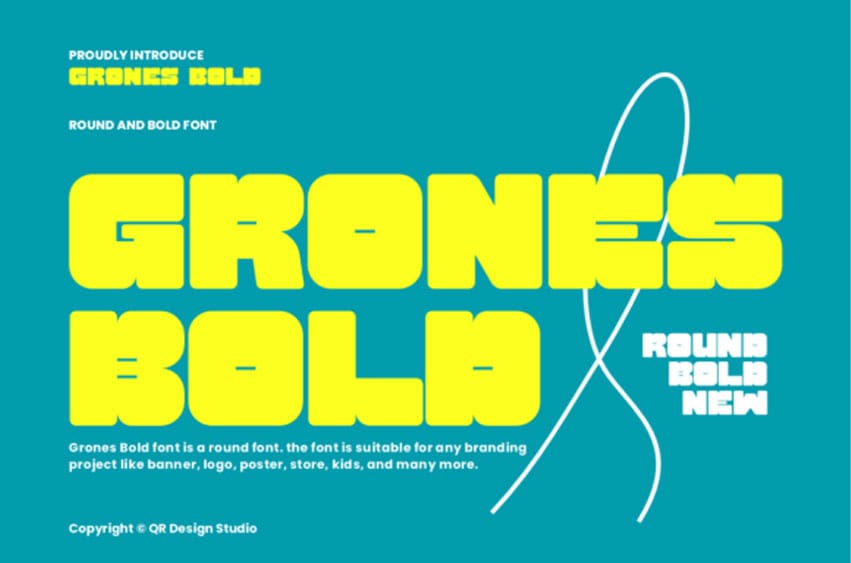
Grones Bold Font is an impactful, round font that merges a bold presence with a playful, friendly aesthetic. Its chunky, geometric letterforms and perfectly rounded edges give it a distinctive, modern feel that is both assertive and approachable. This typeface is a versatile tool for designers seeking to make a strong visual statement. Its clear, powerful lines make it suitable for headlines and titles, ensuring your message is not only seen but also remembered.
Grones Bold is the perfect font for any branding project, including bold logos, eye-catching banners, posters, and designs for products and stores, especially those targeting a modern or youthful audience.